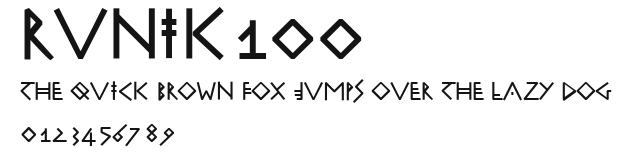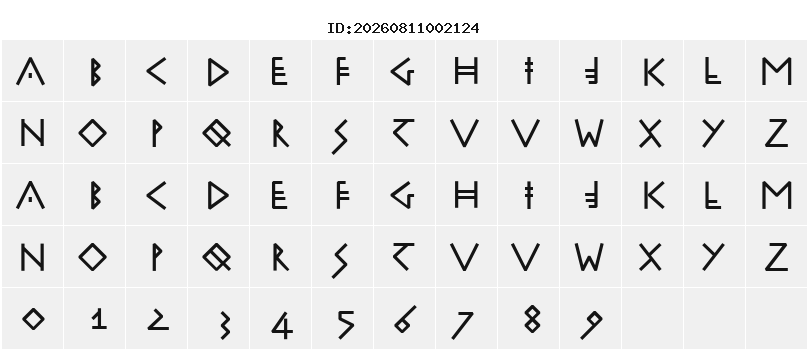
RuniK100.ttf is a modern, elegant sans-serif font designed for ultimate readability and visual harmony. Perfect for branding, headlines, web design, and print materials.